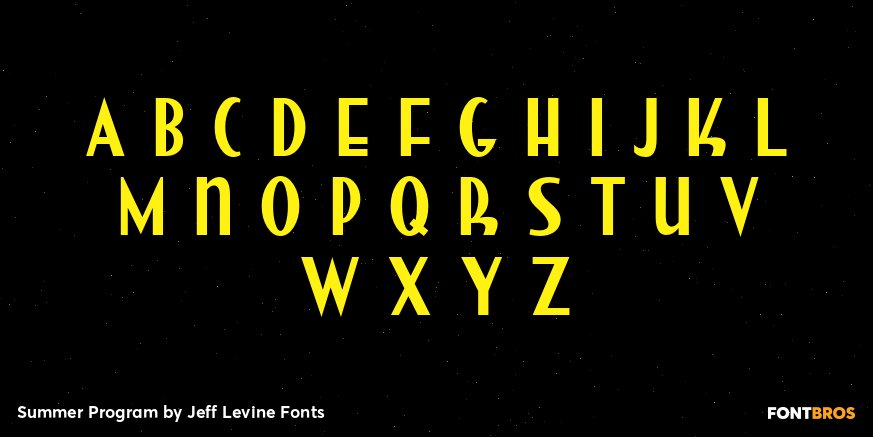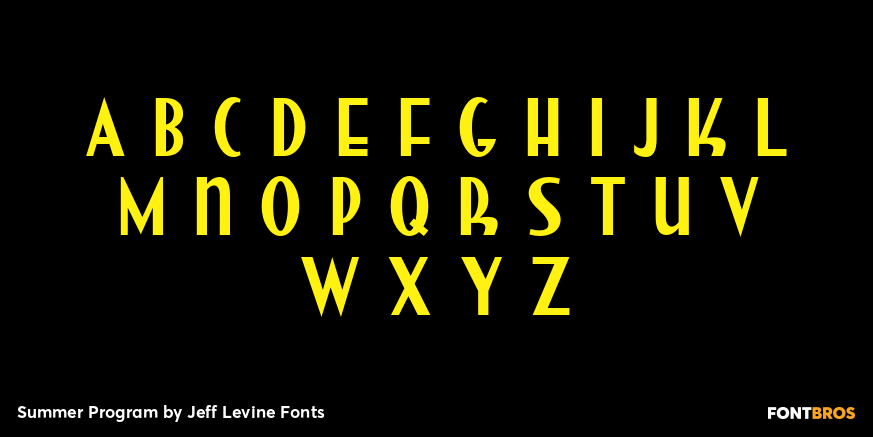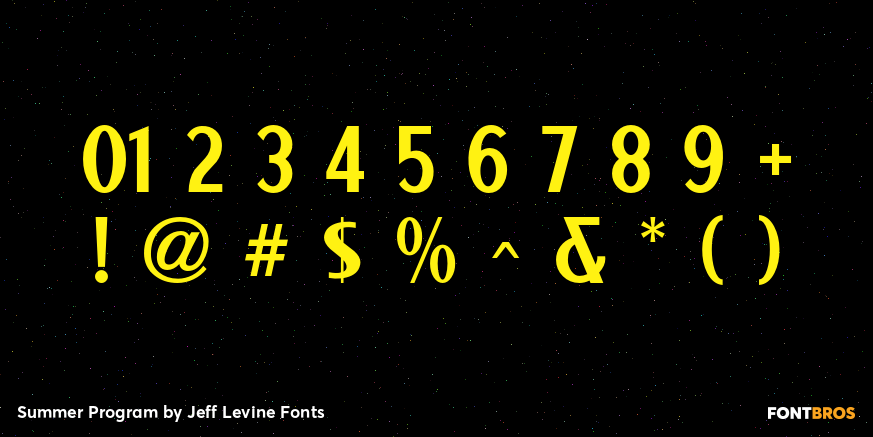
Summer Program
The WPA (Works Progress Administration) posters on file at the Library of Congress have been a treasure trove of classic hand-lettered type designs. Summer Program JNL is based on one such poster offering free arts and crafts classes in New York City sponsored by the Federal Art Project.
Summer Program by Jeff Levine Fonts